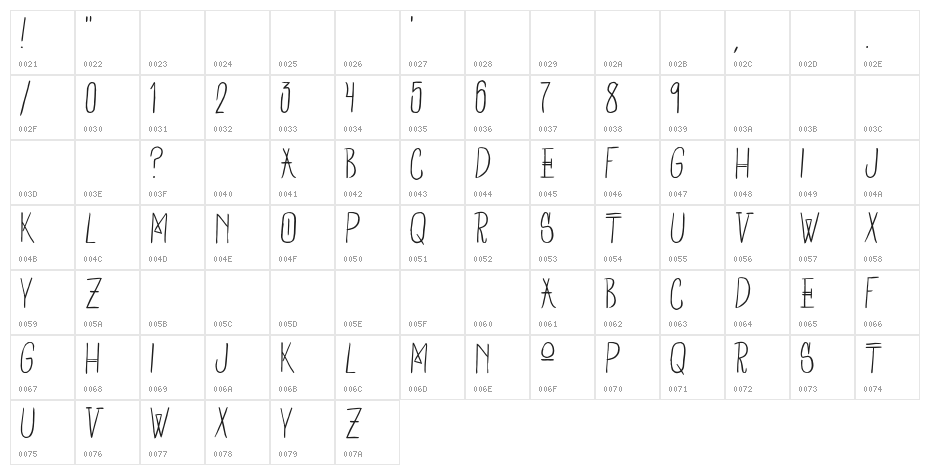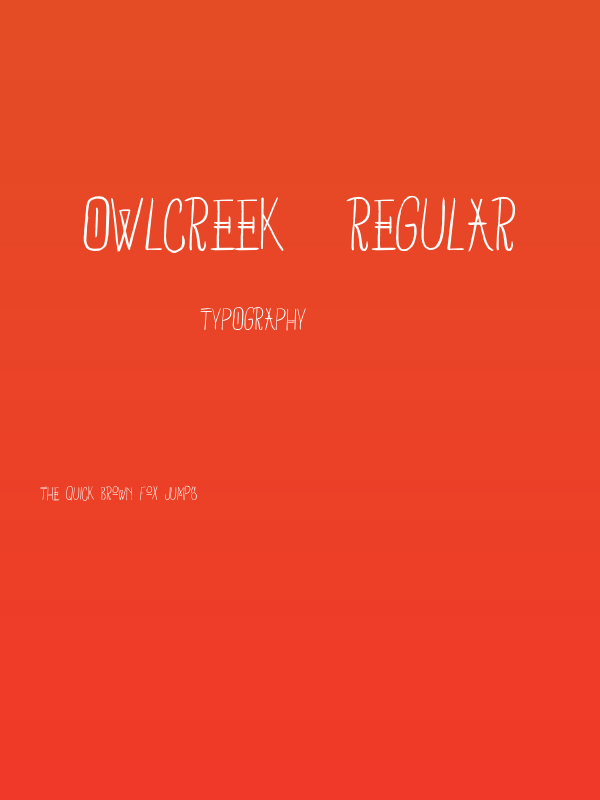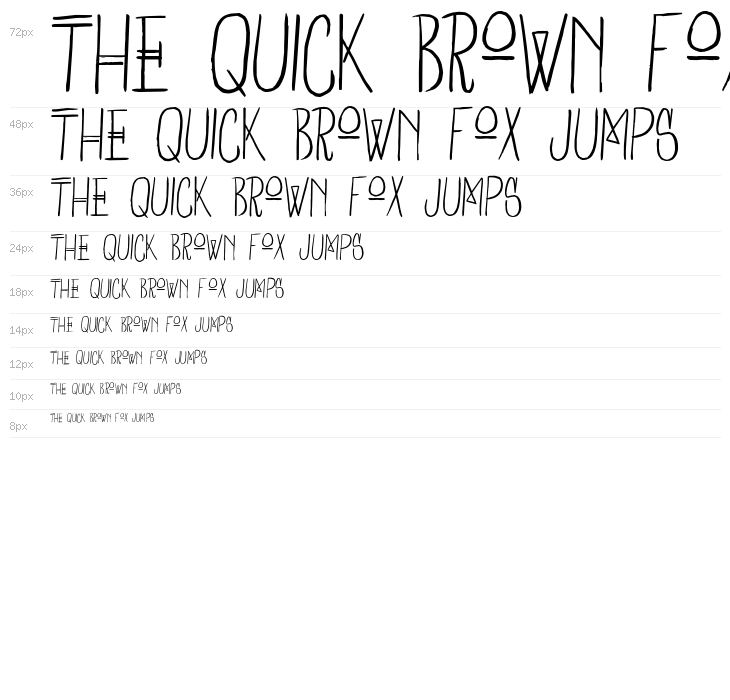
OwlCreek-Regular Font
OwlCreek-Regular Description
This font features a unique and playful design with a hand-drawn aesthetic. The characters are tall and narrow, with a slightly irregular stroke that gives them a whimsical and artistic feel. The uppercase letters are particularly distinctive, with some characters incorporating unexpected angles and curves. The lowercase letters maintain a consistent style, complementing the uppercase set. Numbers are clear and legible, following the same quirky style. The special characters are creatively designed, adding to the font's overall charm. This font is perfect for projects that require a touch of creativity and individuality.
Use CaseLogos, Posters, Creative projects
Proposed ProjectsIdeal for creative projects such as children's books, artistic posters, and unique branding materials.